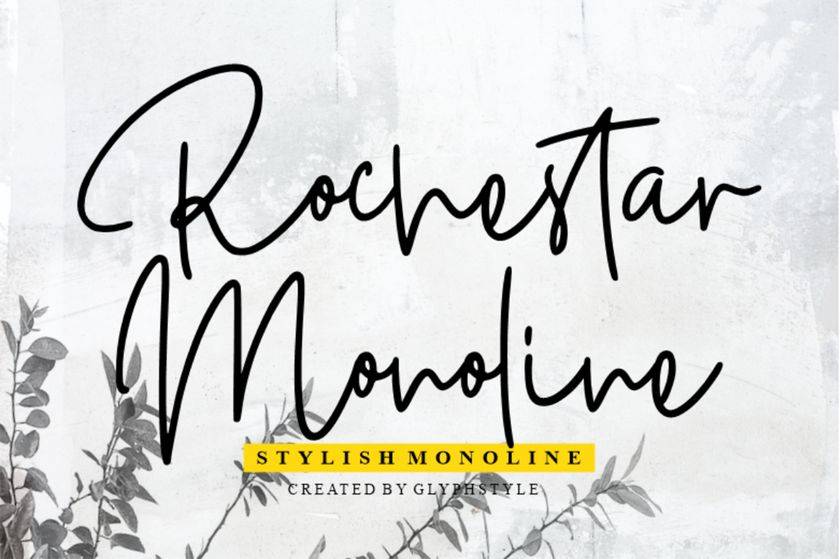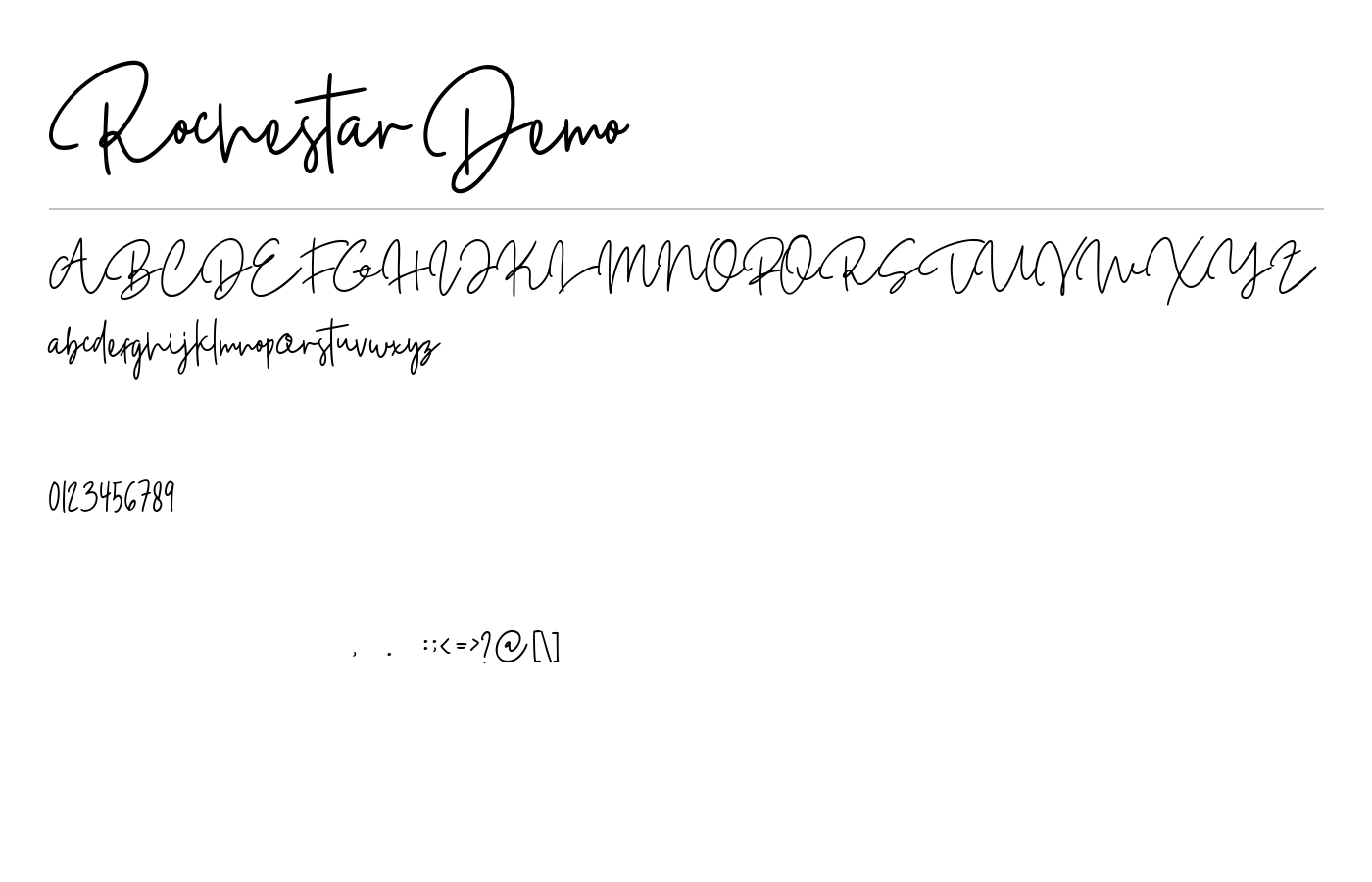
Rochestar Font is a delicate, handwritten script with a casual and elegant feel, featuring thin, flowing lines and airy spacing that evoke a personal, artistic touch. Its tall, slightly irregular letterforms and smooth curves make it perfect for creative projects like logos, invitations, and stylish branding that seek a modern yet approachable look. This font works best when used in headings or display text where its unique, handcrafted character can truly shine.
Rochestar Font
About Rochestar Font
| Font family | Rochestar Font |
| Designer | GlyphStyle |